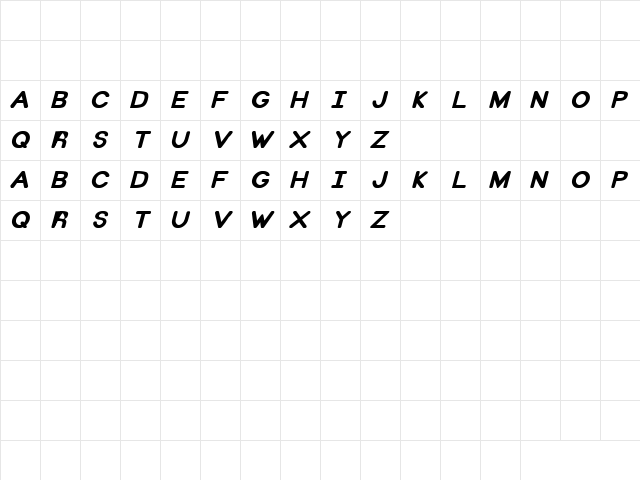
Swans 1 Bold Italic Font Preview
Design Context for Swans 1 Typeface
Swans 1 takes a measured approach to typography — its balanced proportions and neutral character make it a reliable workhorse for both digital and print work. The dynamic lean of this cut emphasises speed and emphasis in any layout. The heavy weight commands attention and anchors typographic hierarchies.
Pro Tip: Try Swans 1 for annotation and caption copy alongside an upright companion — the contrast in angle creates a dynamic but ordered typographic system.